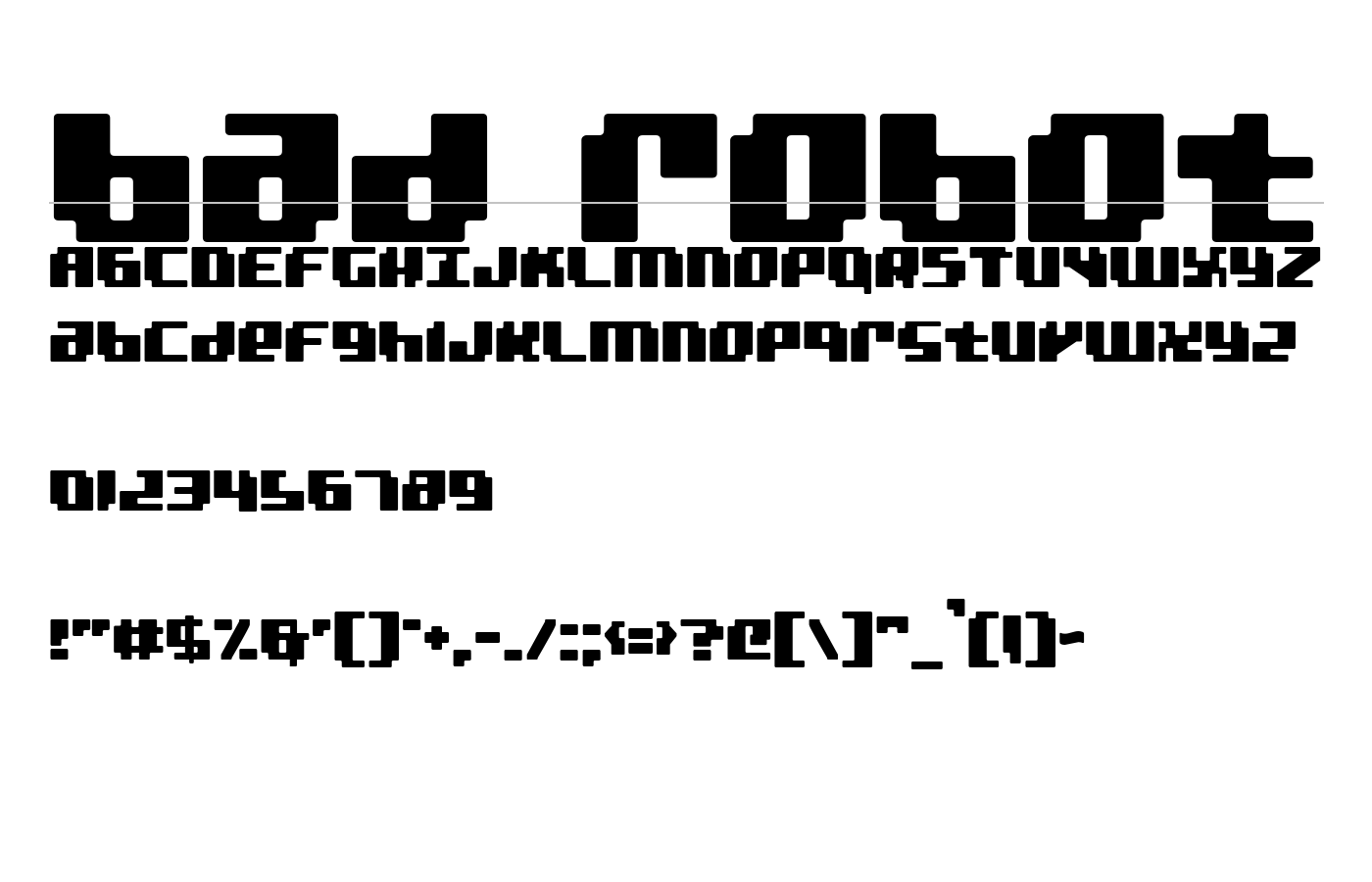
Bad Robot is a bold, blocky sans serif font characterized by its strong geometric shapes and uniform stroke width, creating a tech-inspired, digital feel. Its condensed letterforms with squared corners and high x-height make it striking and easy to read in headlines or display uses, perfect for futuristic, gaming, or technology branding where a modern, robust presence is desired.
bad robot Font
About bad robot Font
| Font family | bad robot Font |
| Designer | Dan Zadorozny |